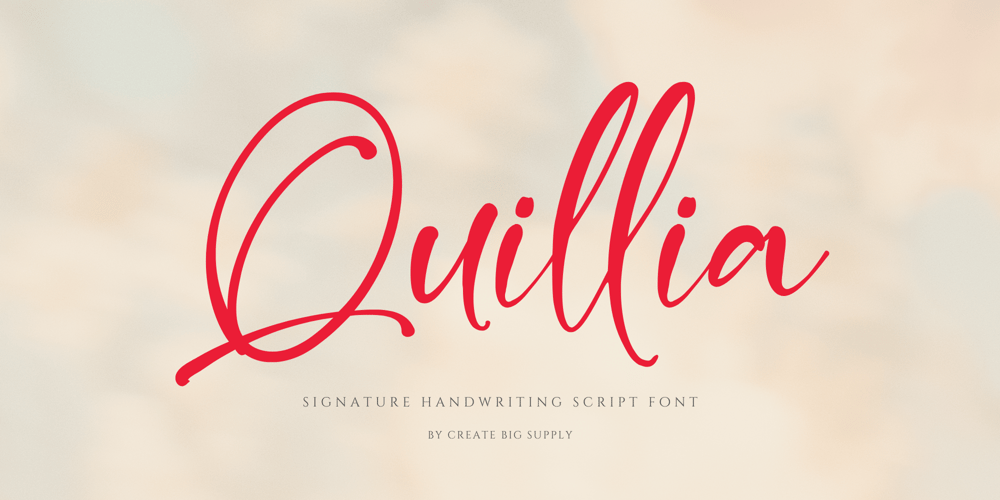
Quillia Font Family was designed by Irpan Maulana and published by Create Big Supply. Quillia contains 1 styles and family package options. Embrace the expressive beauty of Quillia, a remarkable Signature Handwriting Script Font that exudes elegance and authenticity. With its bold and natural signature style, Quillia adds a touch of sophistication to your designs. This versatile font features both uppercase and lowercase letters, numbers, and punctuations, ensuring flexibility for various design projects. Its multilingual support enables seamless communication across different languages, while the PUA encoding allows easy access to special characters and ligatures. Download Quillia Signature Handwriting Script Font now and elevate your projects with its distinctive handwritten charm.